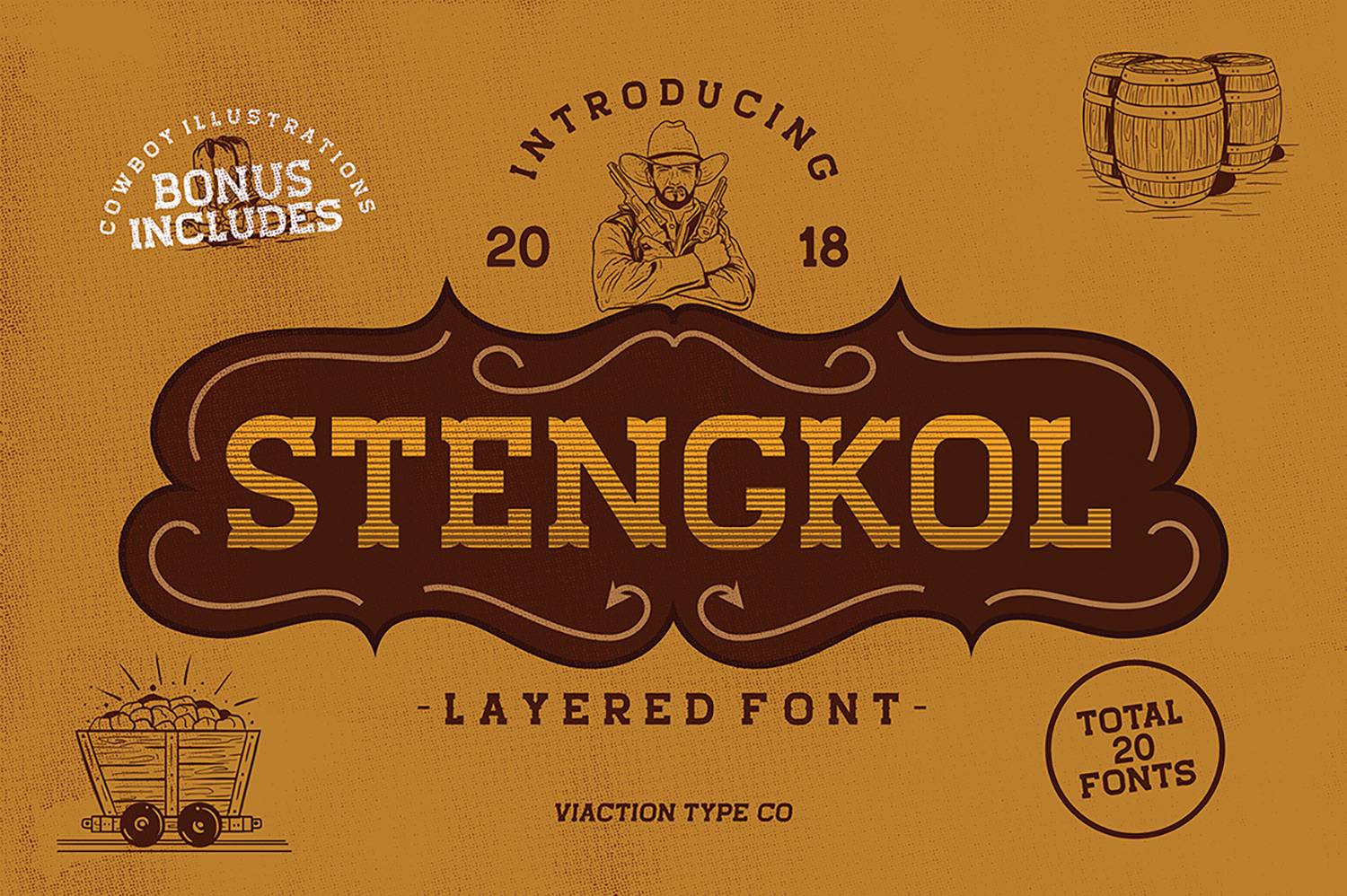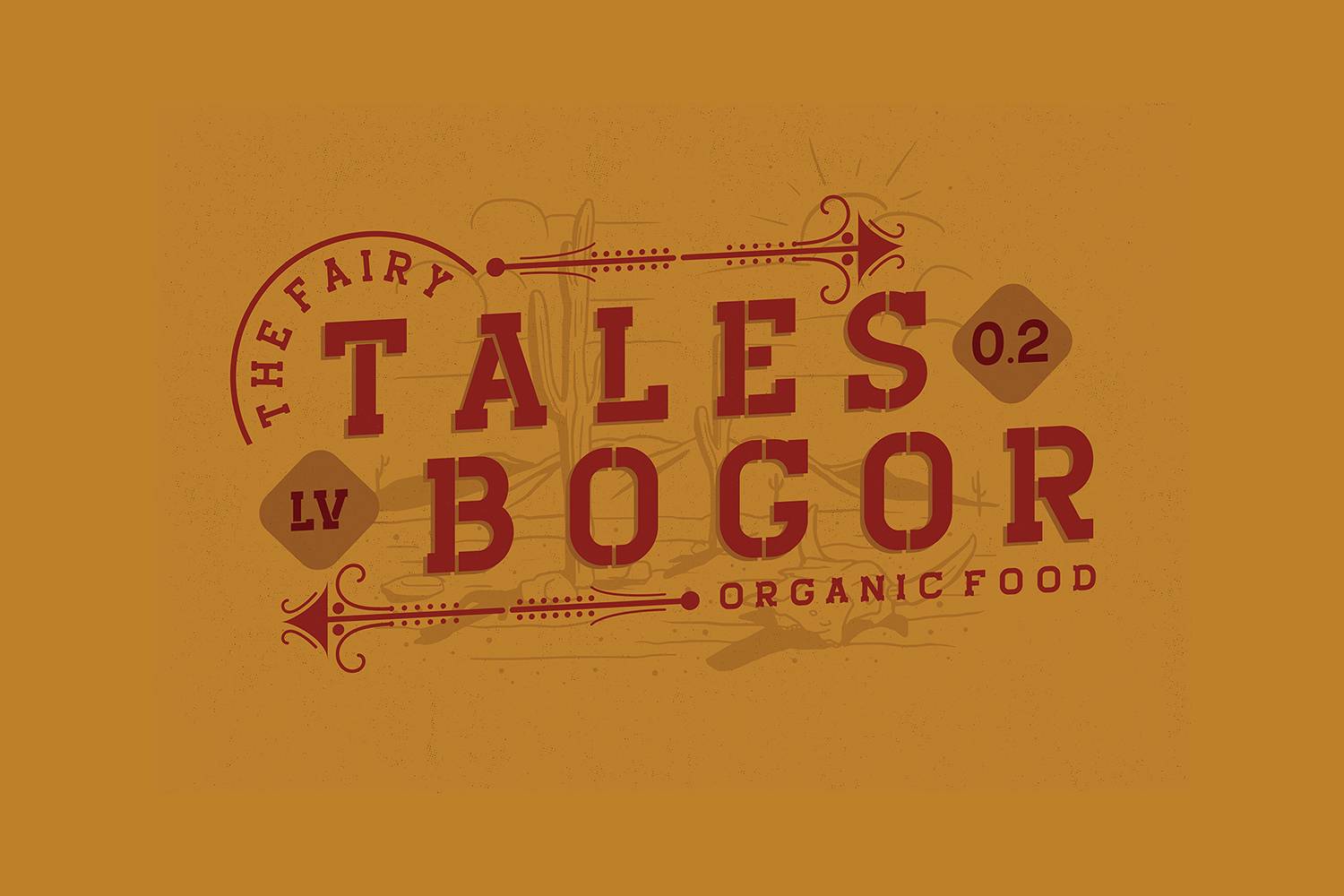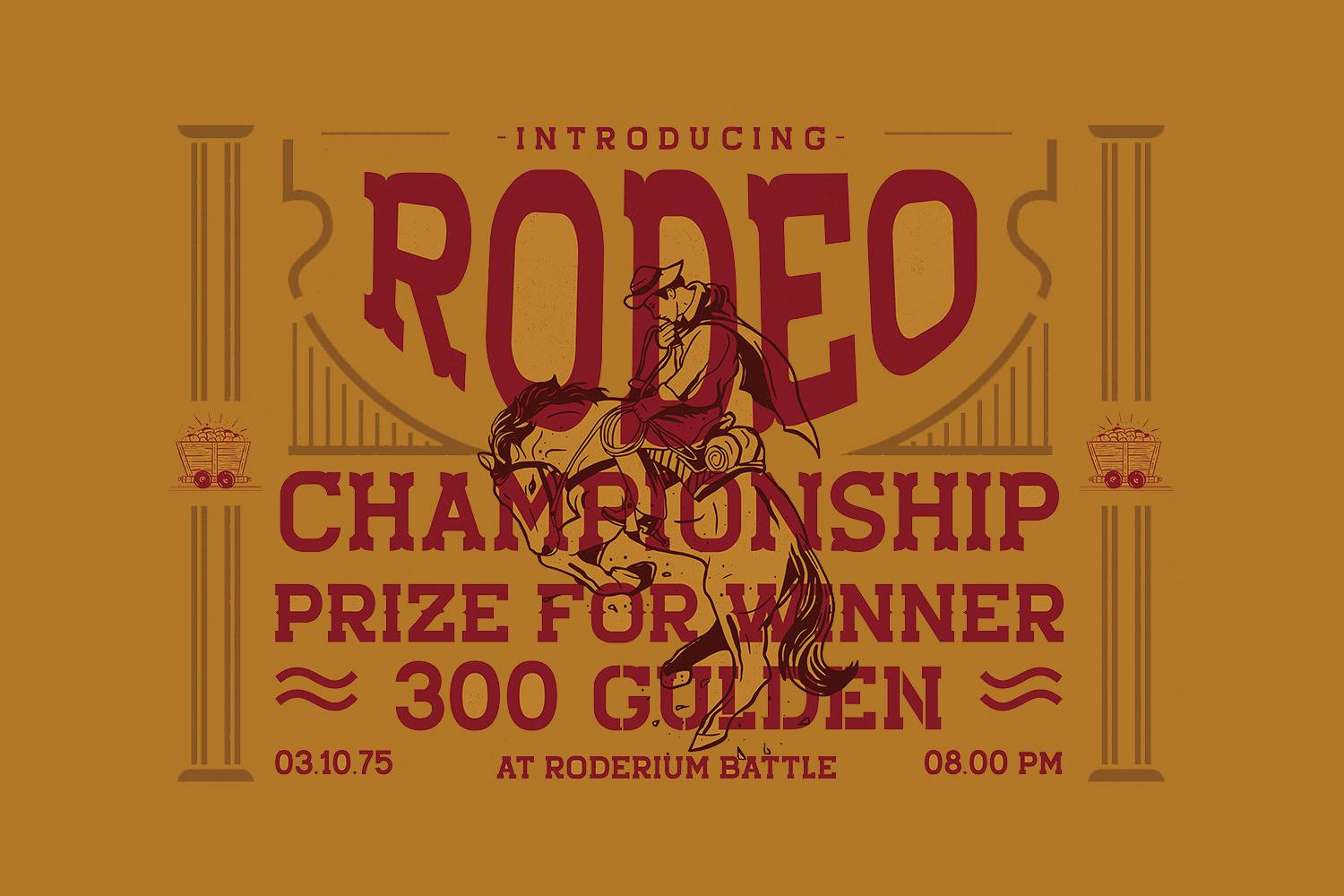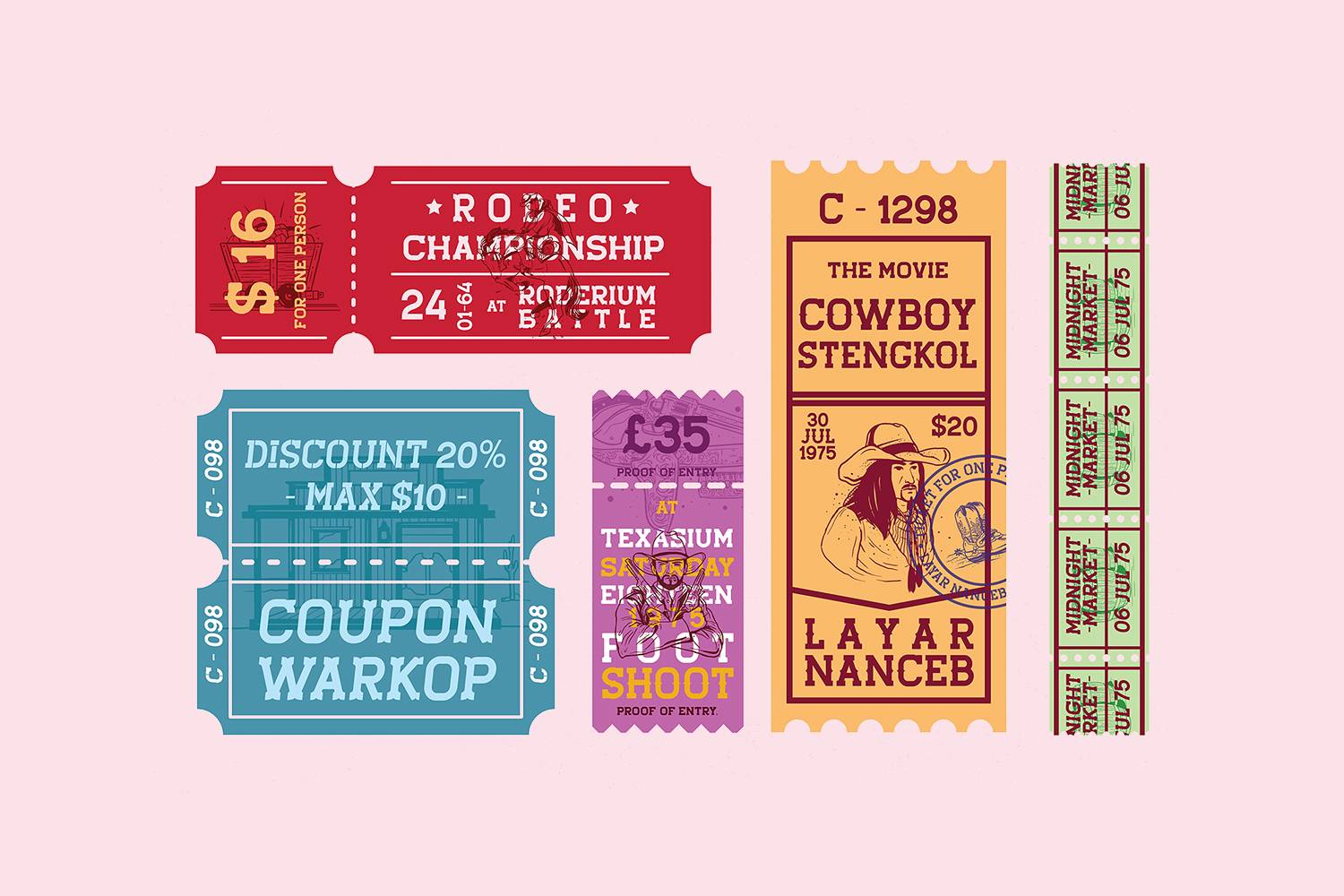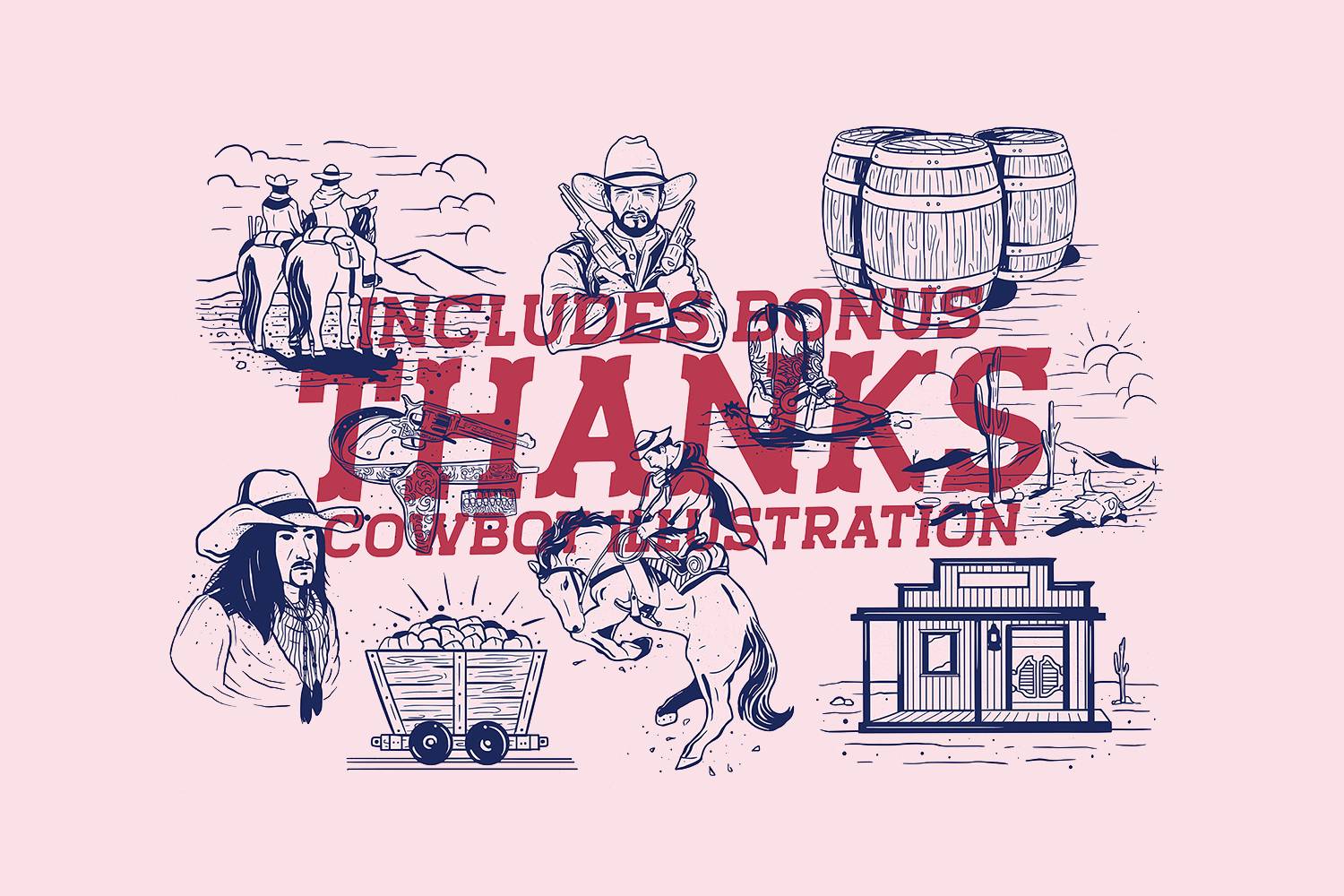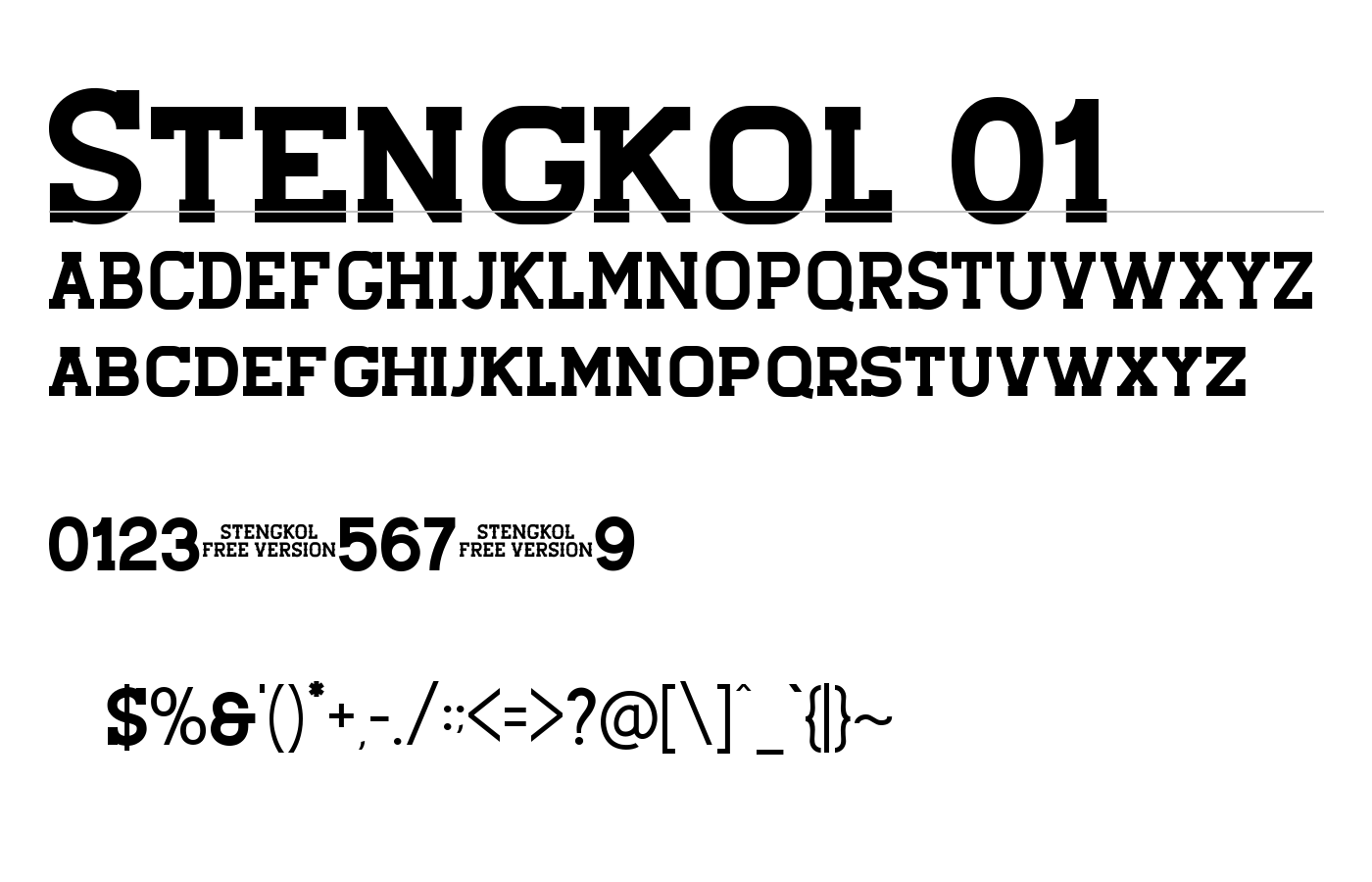
Stengkol is a bold slab serif font with a strong, sturdy presence and well-defined blocky serifs, making it perfect for impactful headlines and branding. Its consistent weight and geometric letterforms give it a robust yet straightforward personality, ideal for logos, posters, and editorial use where clarity and boldness are key. This font works especially well in designs that aim to communicate strength and reliability with a classic touch.
Stengkol Font
About Stengkol Font
| Font family | Stengkol Font |
| Designer | Lukman Hidayat "Viaction Type Co" |